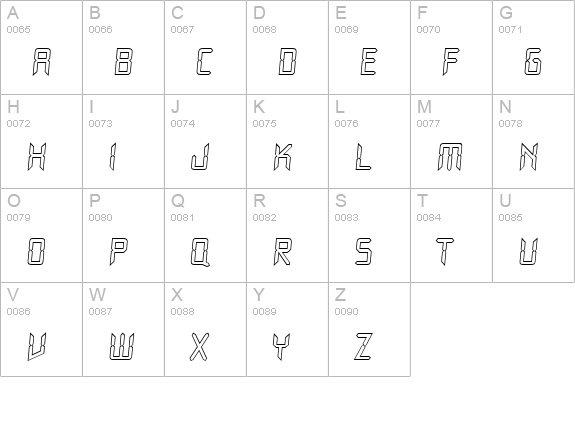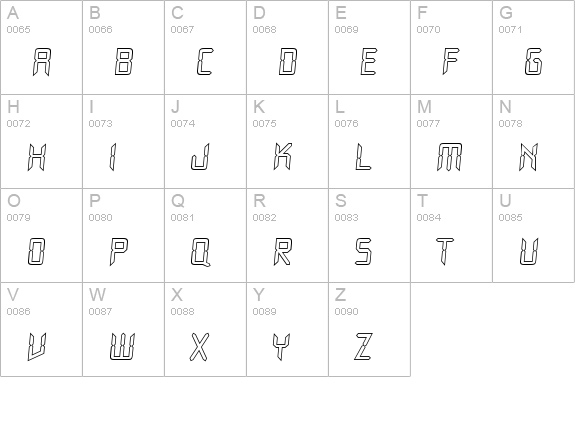
WatchMN-Outline Font Details
WatchMN-Outline is a modern and stylish font that combines sleek lines with a contemporary aesthetic. Its clean and sophisticated design makes it perfect for a wide range of projects, from logos to posters to websites. The outline style adds a unique touch to any design, giving it a sleek and professional look. What's even better is that WatchMN-Outline is available for free download at FontsMarket.com. This means you can easily access this versatile font without any cost, making it a valuable addition to your font collection. With its versatility and modern appeal, WatchMN-Outline is sure to enhance your design projects and help you create stunning visuals that stand out.